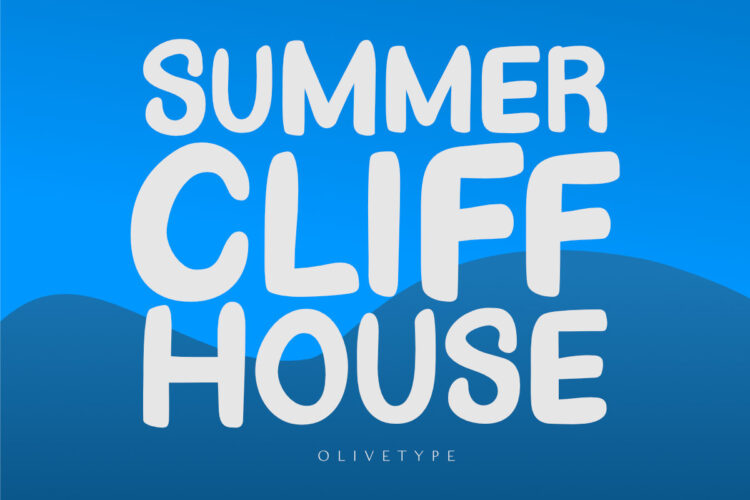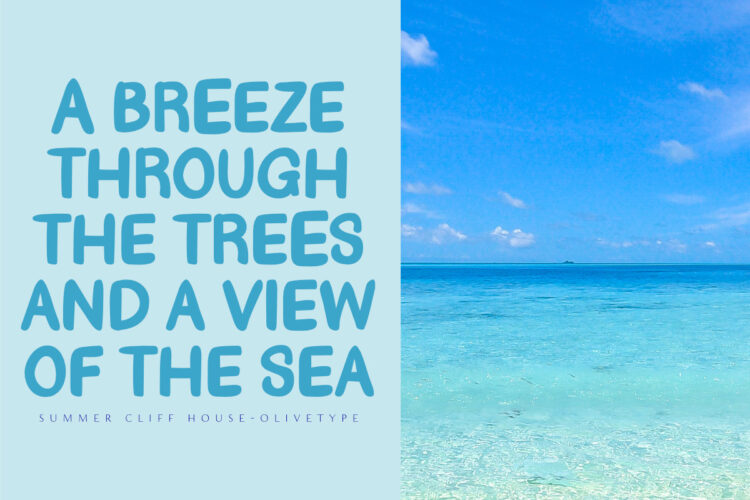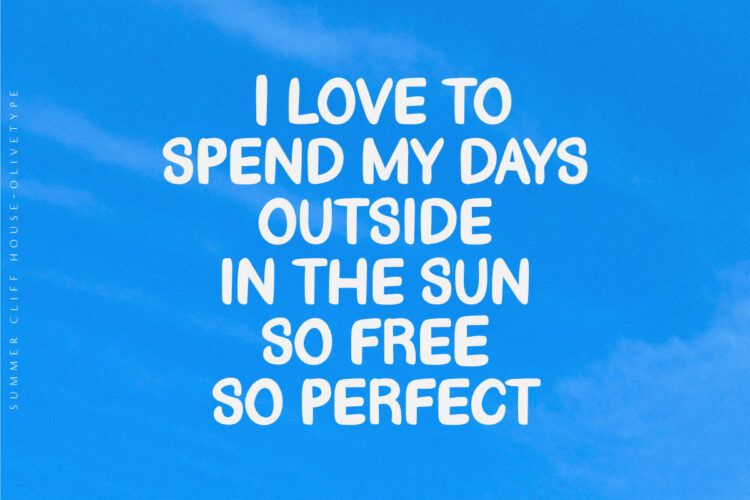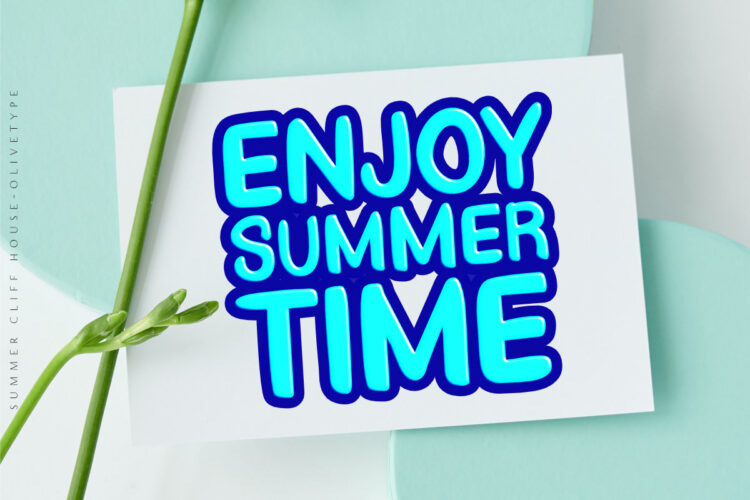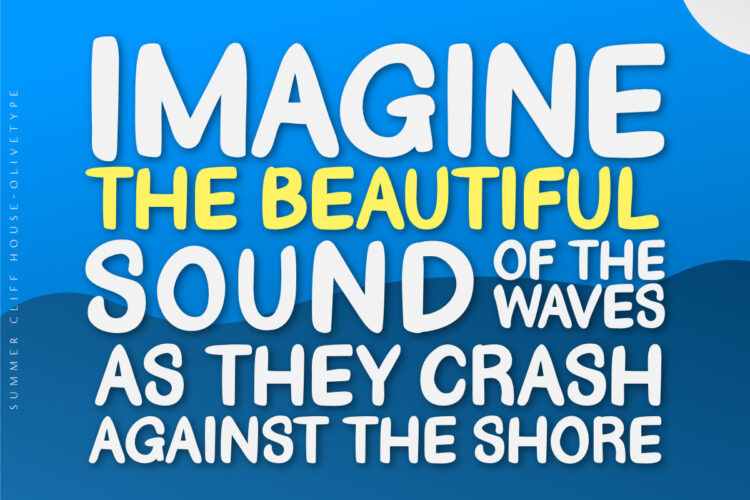
Summer Cliff House is a bold and fun typeface. Its casual vibe will help you create designs that are sure to bring a smile to everyone’s face. From party invitations to beach-themed designs this font can help you look the best.